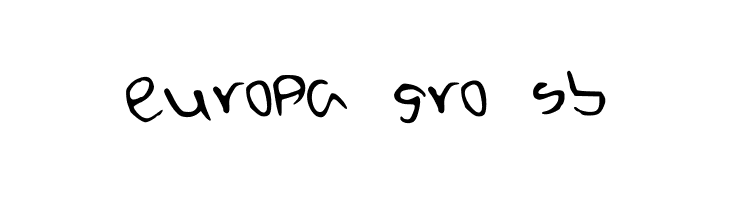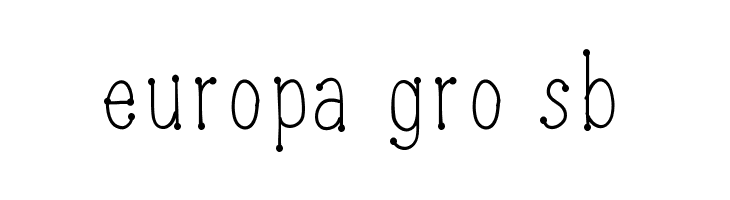
( Benjamin Wyler )
A playful, dotted line font with a whimsical, hand-drawn style.
( Anigma New Media - www.anigma.fsnet.co.uk/an/anigma-fonts.html )
A bold, rugged font with a distressed, textured appearance.
A playful, bold, and rounded font with a whimsical, bubbly appearance.
( Fonts by Pizzadude )
A playful, bold, hand-drawn style font with thick strokes and a whimsical feel.
( Fonts by Maulana Creative )
A playful, casual handwritten font with smooth, flowing lines and a relaxed appearance.
A playful, rounded font with a hand-drawn, informal style.
Artistic face profiles instead of a traditional font.
( DrJohnDee - www.fontspace.com/profile/drjohndee )
A bold, geometric stencil-style font with unique cutouts.
( DrJohnDee - www.fontspace.com/profile/drjohndee )
A bold, rounded sans-serif font with a modern and friendly appearance.
( DrJohnDee - www.fontspace.com/profile/drjohndee )
A bold, rounded font with a geometric and modern style.
( DrJohnDee - www.fontspace.com/profile/drjohndee )
A whimsical and playful font with ornate, curly serifs and decorative elements.
( DrJohnDee - www.fontspace.com/profile/drjohndee )
A whimsical, decorative font with playful curls and swirls.
( DrJohnDee - www.fontspace.com/profile/drjohndee )
A bold, condensed font with a vintage yet modern style, perfect for impactful headlines.
( DrJohnDee - www.fontspace.com/profile/drjohndee )
A dynamic, expressive handwritten font with fluid, cursive letterforms.
( DrJohnDee - www.fontspace.com/profile/drjohndee )
A dynamic, handwritten font with fluid, expressive strokes.
( DrJohnDee - www.fontspace.com/profile/drjohndee )
A bold, angular font with a modern and geometric style.
A playful, rounded font with bold, smooth curves and a friendly vibe.
( Zulkhairi M Saleh - fontbundles.net/zulkhairilettering )
A modern-vintage serif font with arrow-like serifs and artistic flair.
A decorative and elegant font with cursive and bold elements, perfect for artistic projects.
A dynamic and expressive script font with modern flair and fluid strokes.
A delicate and flowing script font with elegant, elongated letterforms.
( Fonts by Maulana Creative )
A playful, bold font with rounded, bubbly letterforms.
( Fonts by antoniorodriguesjr.com )
A modern, geometric font with art deco influences and thin, elegant lines.
( Fonts by antoniorodriguesjr.com )
A modern, geometric font with multiple vertical lines creating a rhythmic aesthetic.
( Fonts by antoniorodriguesjr.com )
A modern, high-contrast font with elegant, sharp lines and bold numerals.
( Fonts by antoniorodriguesjr.com )
A modern, high-contrast font with elegant, slender characters.